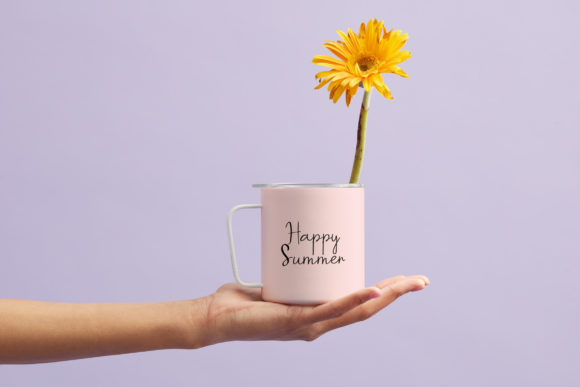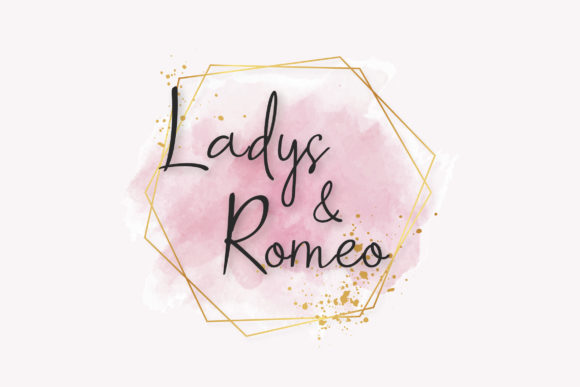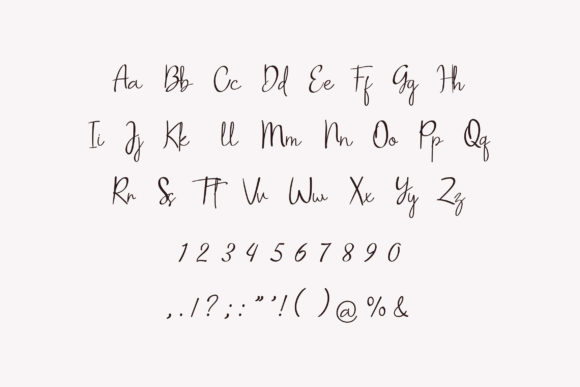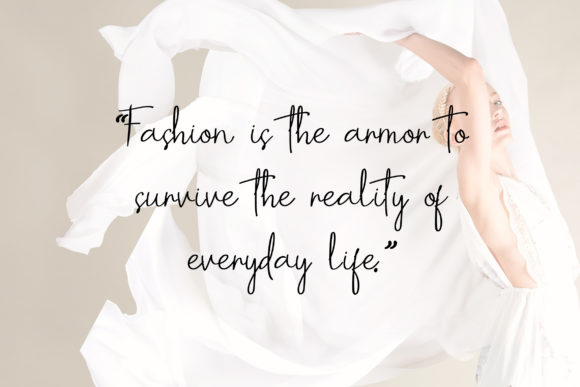
Introducing Beauty Bohemian Font: The Sweet and Cursive Handwritten Font for Your Design Needs
Are you a designer or crafter looking for a font that can add a touch of elegance and romance to your projects? Look no further than the Beauty Bohemian Font. This sweet and cursive handwritten font is perfect for a variety of design ideas and is sure to bring a joyful and romantic touch to each of your creations.
What is Beauty Bohemian Font?
Beauty Bohemian is a beautiful, handwritten font that is inspired by the free-spirited and artistic bohemian style. The font features gentle, flowing lines and a sweet, cursive script that is perfect for adding a touch of whimsy and romance to your designs. With its unique and elegant style, Beauty Bohemian Font is sure to stand out from the crowd and make your designs shine.
Key Features of Beauty Bohemian Font
So, what makes Beauty Bohemian Font so special? Here are just a few of its key features:
- Sweet and Cursive Script: The font features a beautiful, cursive script that is perfect for adding a touch of elegance and sophistication to your designs.
- Gentle and Flowing Lines: The font’s gentle, flowing lines give it a soft and romantic feel that is perfect for a variety of design applications.
- Handwritten Style: The font’s handwritten style gives it a unique and personal touch that is sure to make your designs stand out.
- Versatile: Beauty Bohemian Font is perfect for a variety of design ideas, from wedding invitations and party decorations to branding and packaging.
Uses for Beauty Bohemian Font
So, what can you use Beauty Bohemian Font for? The possibilities are endless! Here are just a few ideas to get you started:
- Wedding Invitations: Add a touch of romance and elegance to your wedding invitations with Beauty Bohemian Font.
- Party Decorations: Use the font to create beautiful party decorations, such as banners, garlands, and more.
- Branding and Packaging: Add a touch of whimsy and sophistication to your branding and packaging with Beauty Bohemian Font.
- Stationery and Cards: Use the font to create beautiful stationery and cards for any occasion.
Why Choose Beauty Bohemian Font?
So, why should you choose Beauty Bohemian Font for your design needs? Here are just a few reasons:
- Unique and Elegant Style: The font’s unique and elegant style is sure to make your designs stand out from the crowd.
- Easy to Read: The font is easy to read, even in small sizes, making it perfect for a variety of design applications.
- Versatile: Beauty Bohemian Font is perfect for a variety of design ideas, from formal to informal.
- High-Quality: The font is high-quality and professionally designed, ensuring that your designs look their best.